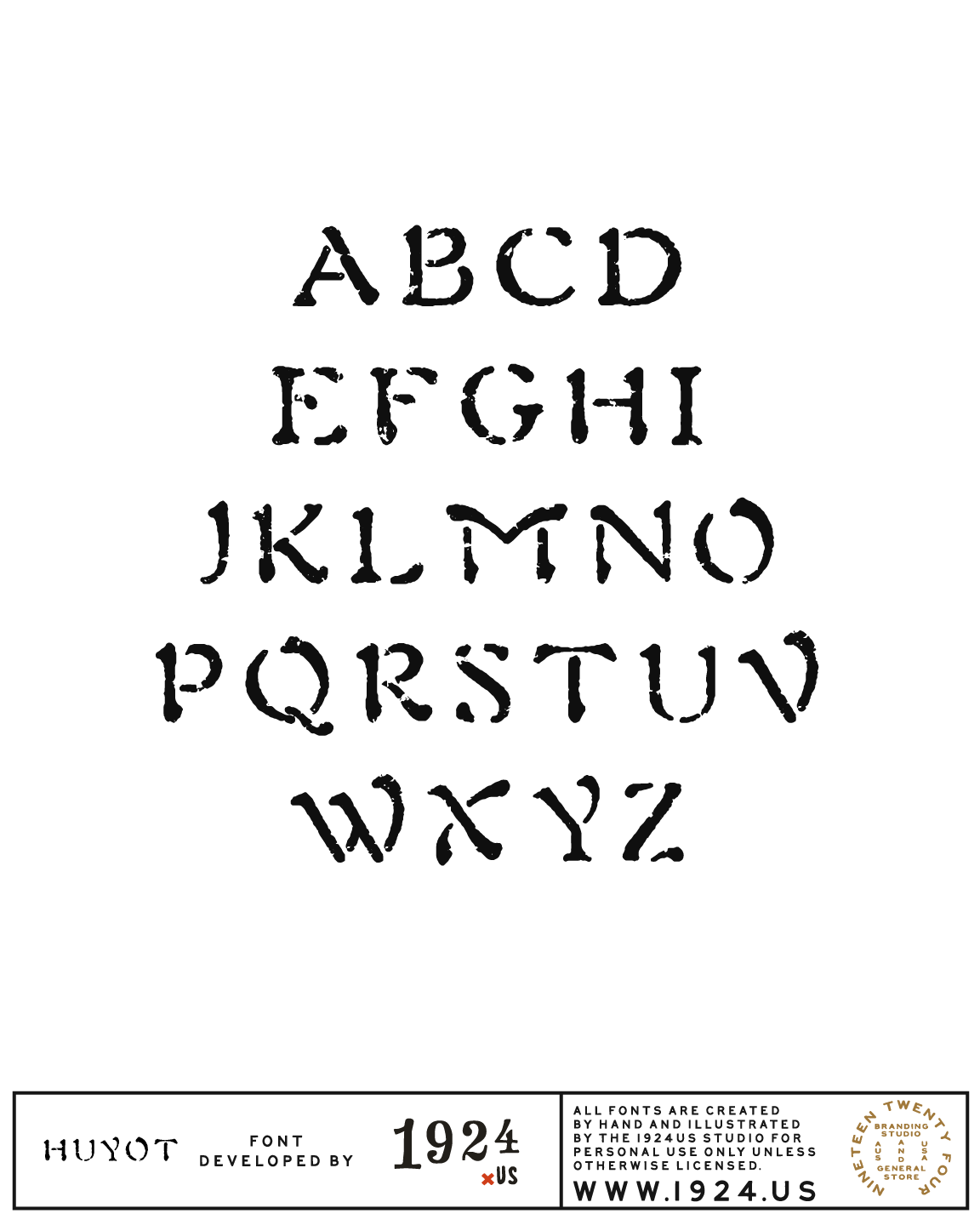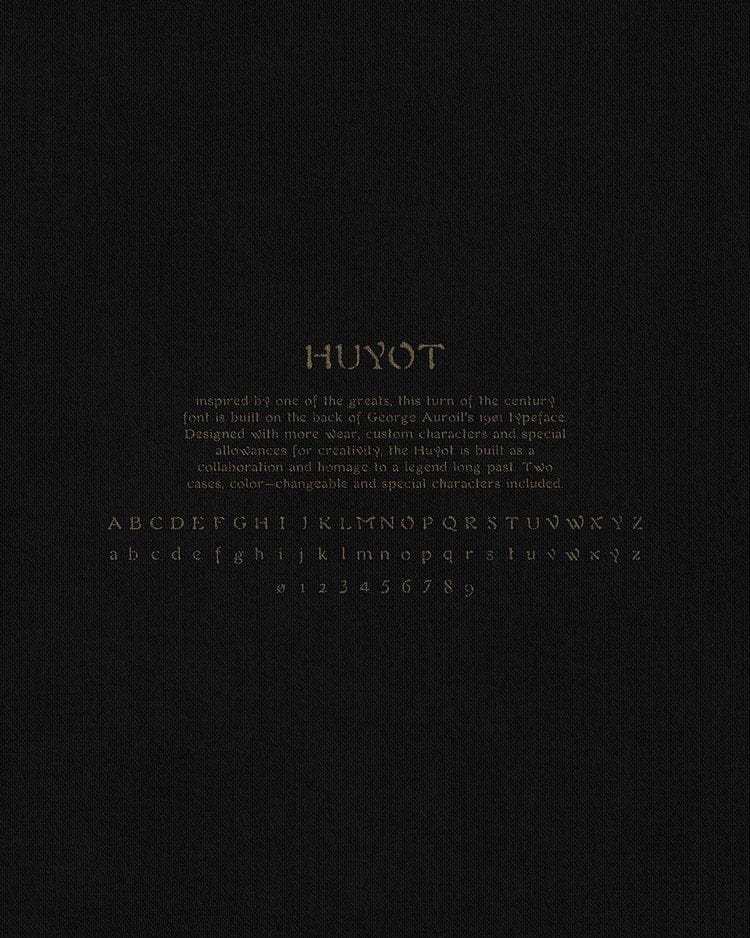
Huyot Font by 1924us
Inspired by one of the greats, this turn of the century font is built on the back of George Auriol’s 1901 typeface. Designed with more wear, custom characters, and special allowances for creativity, the Huyot is built as a collaboration and homage to a legend long past and well renowned in the world of Art-Nouveau. Two cases, color-changeable and special characters fully included.